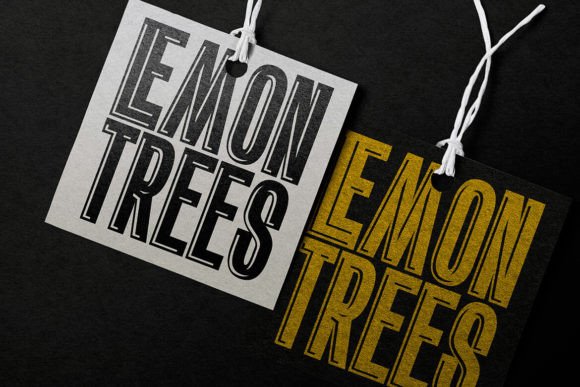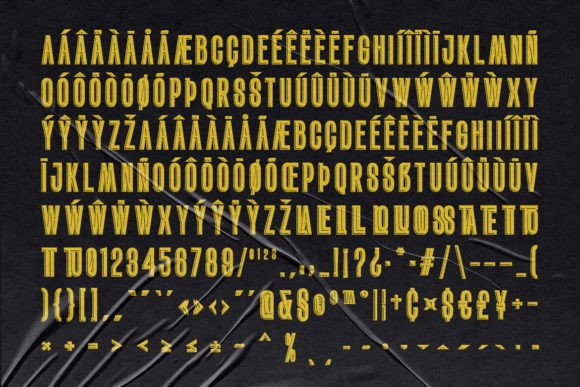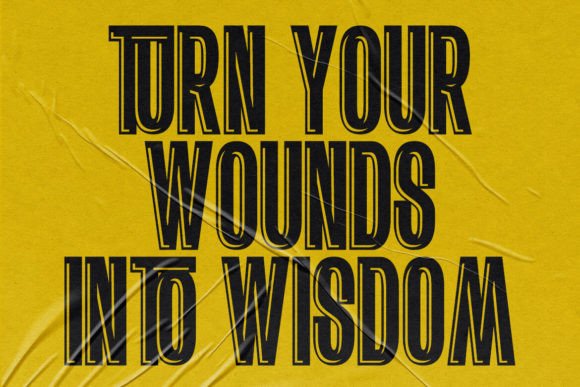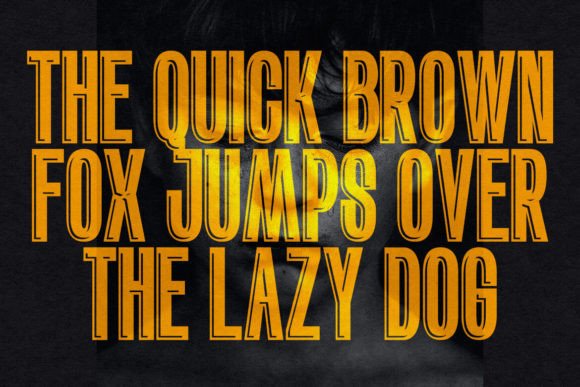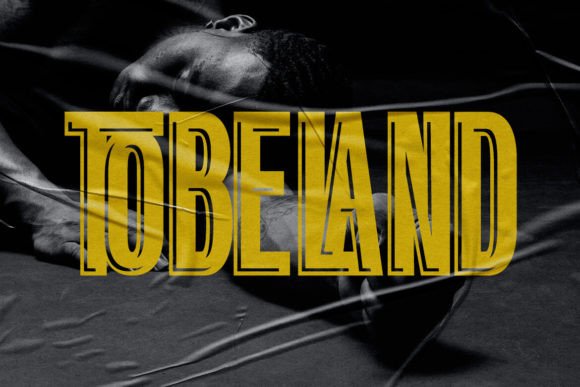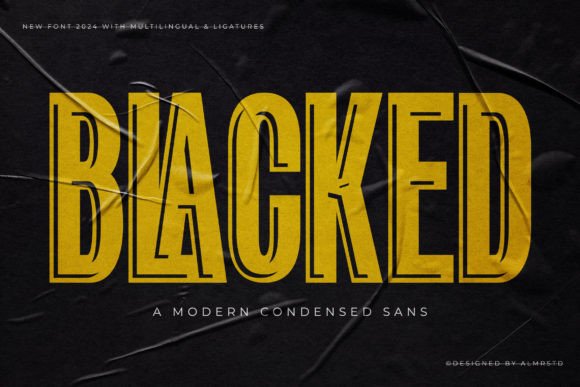
Discover the Elegance of Blacked Font: A Modern Sans Serif for Creative Projects
Have you ever been in the middle of a design project, feeling like everything is coming together perfectly, until you realize that the font you’ve chosen just isn’t doing it justice? I recall a particularly frustrating experience with a branding project for a boutique client. The logo design was sleek, the color palette was on point, but the font I chose just didn’t have the elegance and sophistication the client was looking for. That’s when I discovered the Blacked Font, a modern sans serif font that has since become a staple in my design library.
First Impressions: What I Love About Blacked Font
The Blacked Condensed Sans font has been a game-changer for me, and here’s why:
• ✨ Elegant and Modern Design: The clean lines and condensed style make it perfect for a wide range of projects, from branding and logos to invitations and magazines.
• ✅ Versatility: Whether you’re working on a product packaging design or a editorial layout, this font adapts seamlessly.
• 💡 OpenType Features: The font comes with a range of OpenType features, including stylistic alternates and glyphs, which allow for a high degree of customization.
A Honest Review: The Not-So-Perfect Aspects
No font is perfect, and Blacked Font is no exception. Here are a few quirks to keep in mind:
• 🤔 Limited Serif Options: As a sans serif font, it may not be the best choice for projects that require a traditional serif look.
• ⚠️ Some Ligatures May Not Display Correctly: Depending on the software or platform you’re using, some ligatures may not display correctly. However, this is a minor issue that can be easily addressed with a little creative workaround.
The Story Behind Blacked Font
The Blacked Font was designed with the modern creative in mind. The designer aimed to create a font that was both elegant and versatile, with a range of OpenType features to make it adaptable to different projects. The result is a font that is both sophisticated and approachable, making it perfect for a wide range of creative applications.
Font Name Blacked Font
Author Almeera Studio
What is the best use for Blacked Font? Blacked Font is perfect for branding, logos, invitations, magazines, product packaging, and more.
Is Blacked Font suitable for body text? While Blacked Font is primarily designed for headlines and titles, it can be used for body text in certain contexts. However, it’s recommended to use a font specifically designed for body text for optimal readability.
Does Blacked Font come with any OpenType features? Yes, Blacked Font comes with a range of OpenType features, including stylistic alternates and glyphs.